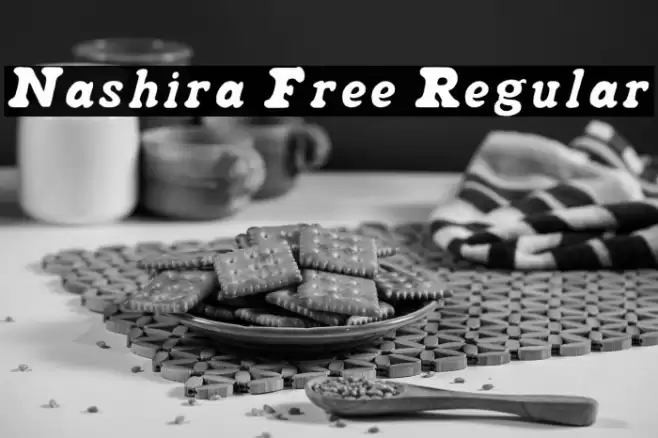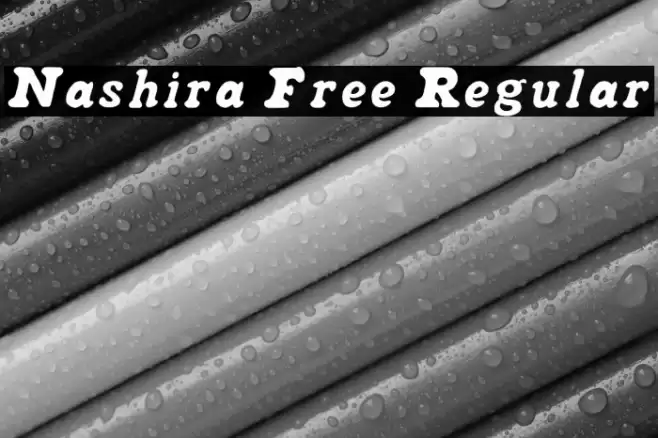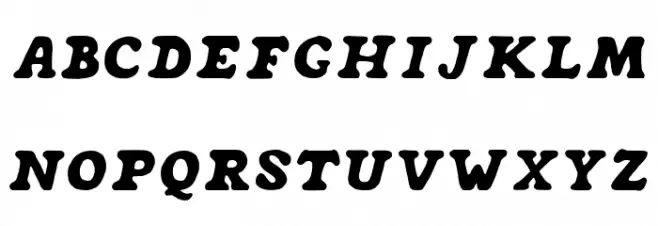
Nashira Free Regular Font
Nashira Free Regular Description
This font features a bold and playful design with a unique blend of rounded and sharp edges, creating a distinctive and eye-catching appearance. The characters are slightly condensed, giving it a compact feel while maintaining readability. The uppercase letters are robust and commanding, while the lowercase letters offer a softer, more approachable look. The font's whimsical style is enhanced by its moderate contrast in stroke thickness, adding depth and interest to each character. It is well-suited for creative projects that require a touch of personality and flair.
A bold, playful font with rounded and sharp edges, offering a distinctive and eye-catching appearance from Regular fonts.
- Overall Style: Playful, Whimsical